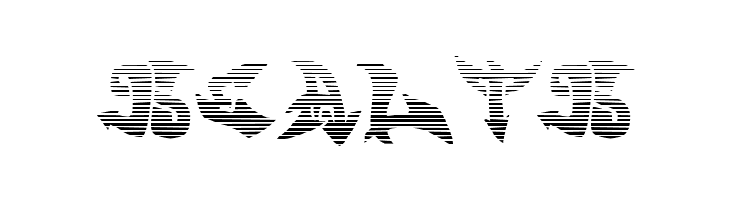
A bold, graffiti-style font with sharp angles and dynamic curves.
A classic serif font with elegant strokes and medium contrast.
A decorative blackletter font with intricate, angular designs and a medieval aesthetic.
A bold, modern font with rounded edges and geometric influences.
A modern, geometric font with a unique two-line style.
A bold, geometric font with angular shapes and solid forms.
A bold, geometric font with a condensed and modern style.
A playful, hand-drawn font with bold, rounded strokes and an informal style.
A bold, graffiti-inspired font with sharp angles and dynamic strokes.